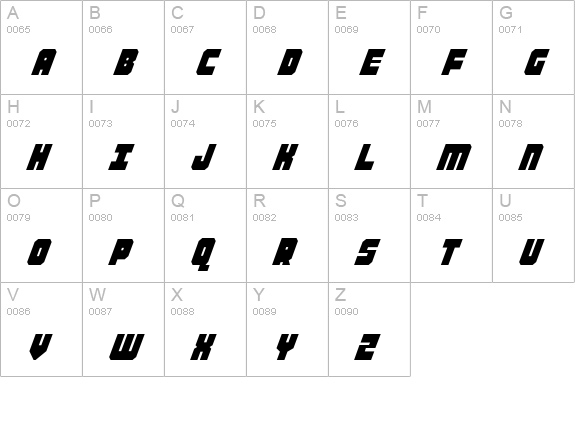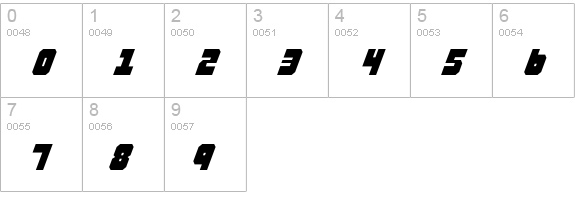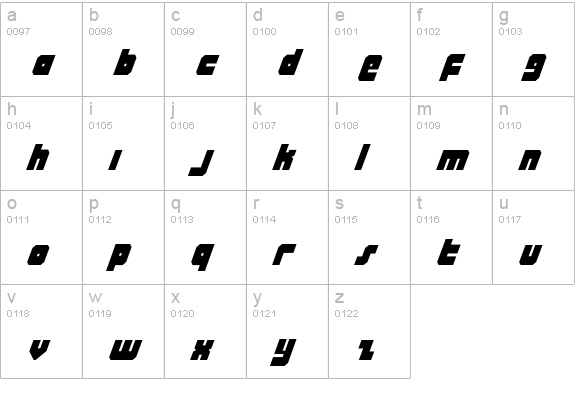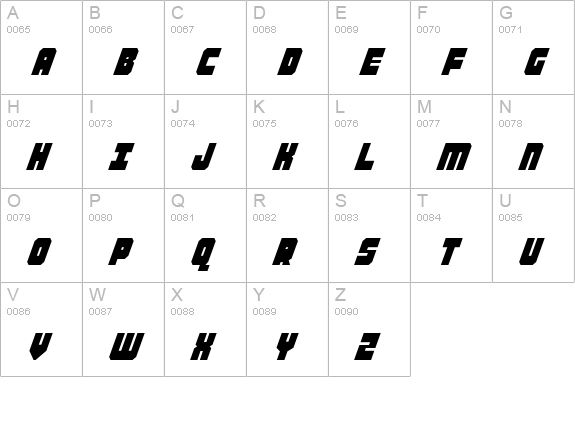
Alpha Taurus Italic Font Details
Alpha Taurus Italic is a distinctive, italic variant in the Alpha typeface family \xE2\x80\x94 well suited to design and typography projects.
Alpha Taurus Italic is a stunning font that exudes elegance and sophistication. With its sleek and modern design, this typeface is perfect for adding a touch of style to any project. The italicized letters give a sense of movement and fluidity, making it a versatile choice for both headings and body text. What makes Alpha Taurus Italic even more appealing is that it is available for free download at FontsMarket.com. This means you can easily access this high-quality font without any cost, making it a valuable addition to your design toolkit. Whether you are working on a professional project or simply looking to enhance your personal creations, Alpha Taurus Italic is sure to impress with its unique charm and readability. Download it today and elevate your designs to the next level!